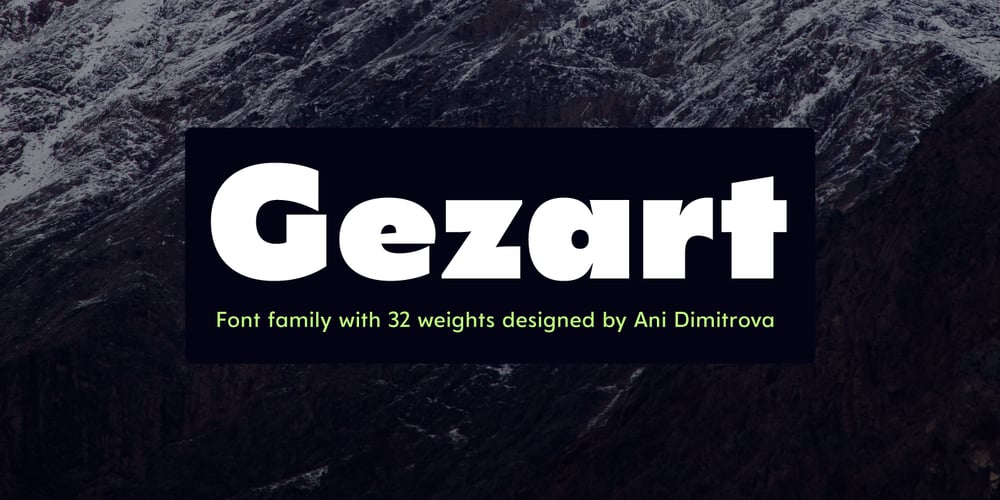
Gezart Font Family was designed by Ani Dimitrova and published by Ani Dimitrova. Gezart contains 32 styles and family package options. Gezart is a modern sans serif with geometric touch in 32 weights – 16 uprights and its matching italics. The weights are ranging from Hair to Heavy, with one of them (Extra Thin) is for free of charge. Each weight of Gezart contains more than 700 glyphs. The family is equipped for complex, professional typography with Open Type Features including — small caps, localized forms, old-style figures, standard ligatures, subscripts, superscripts, numerators, denominators, numbers in circles arrows, currency symbols and fractions. The Gezart font family is ideally suited for branding & layout design, posters, body text, web, editorial design, and more.